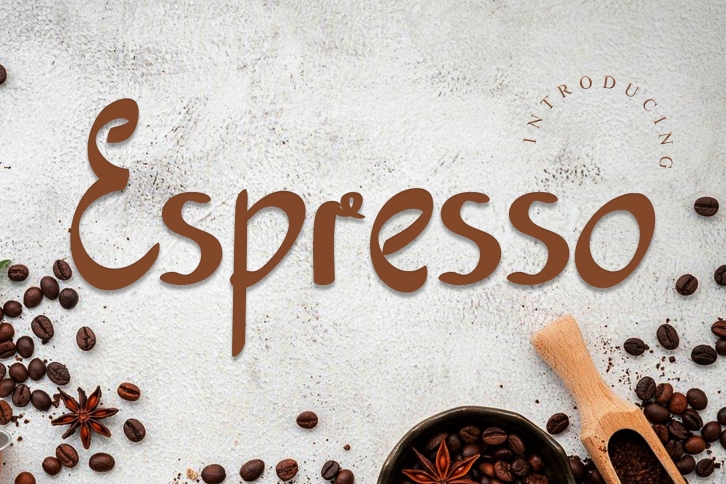
Espresso is a gorgeous font that was realeased on June 7, 2021. The font can be used in many style contexts and design environments. Perfect for invitations, magazines, websites, logos, and more! It was designed by Giart Studios and the file size is 6.16 MB. Thanks for checking out this font!